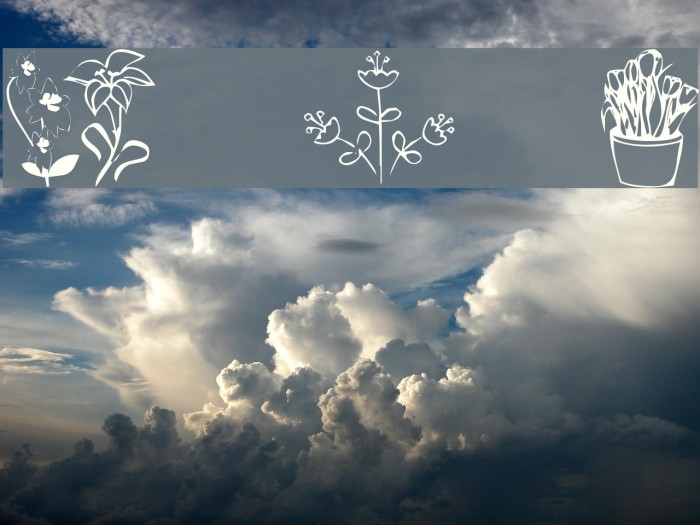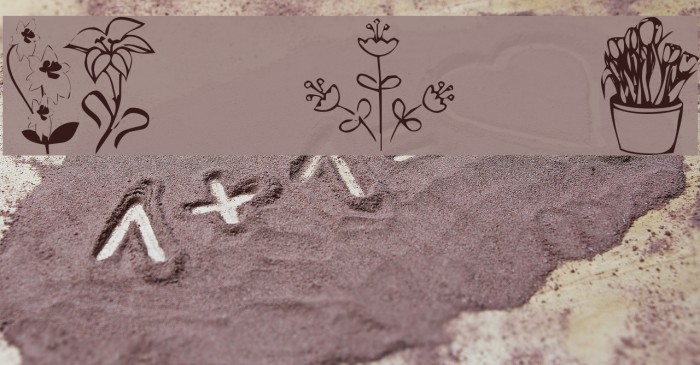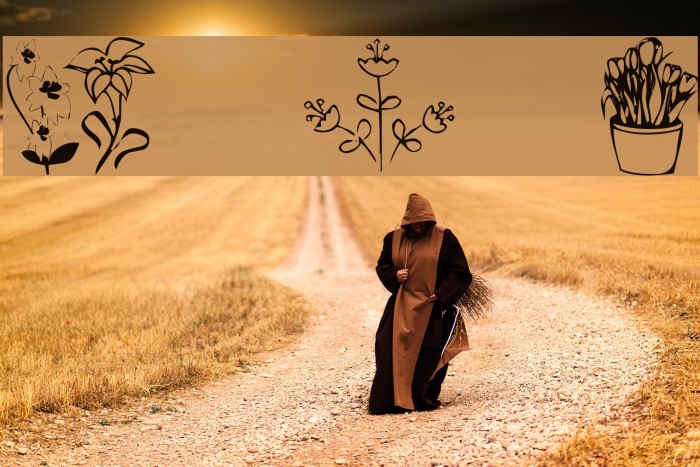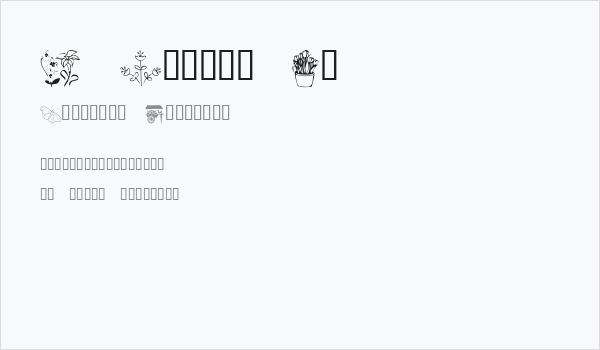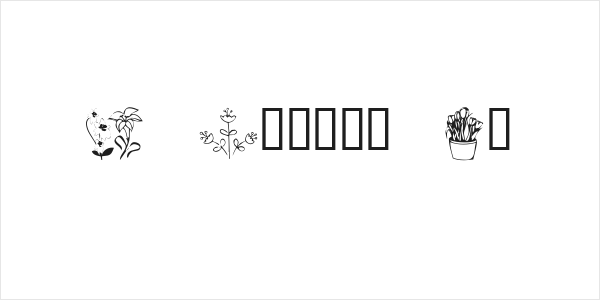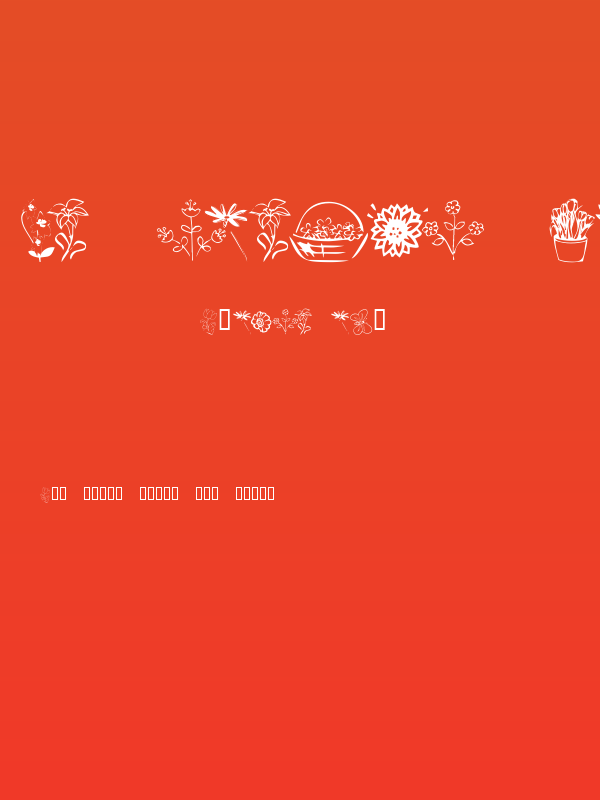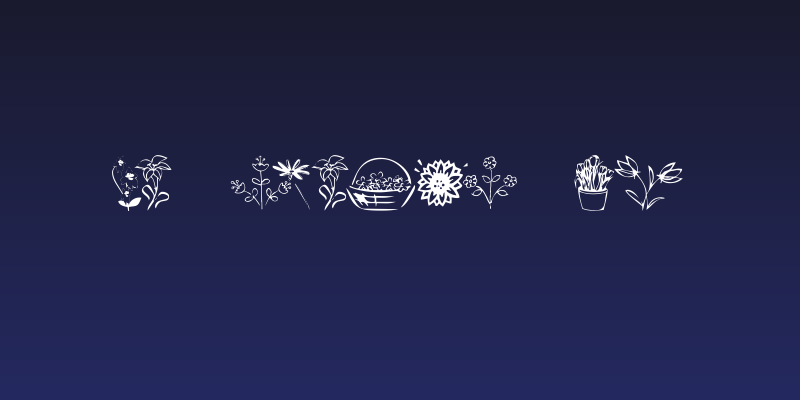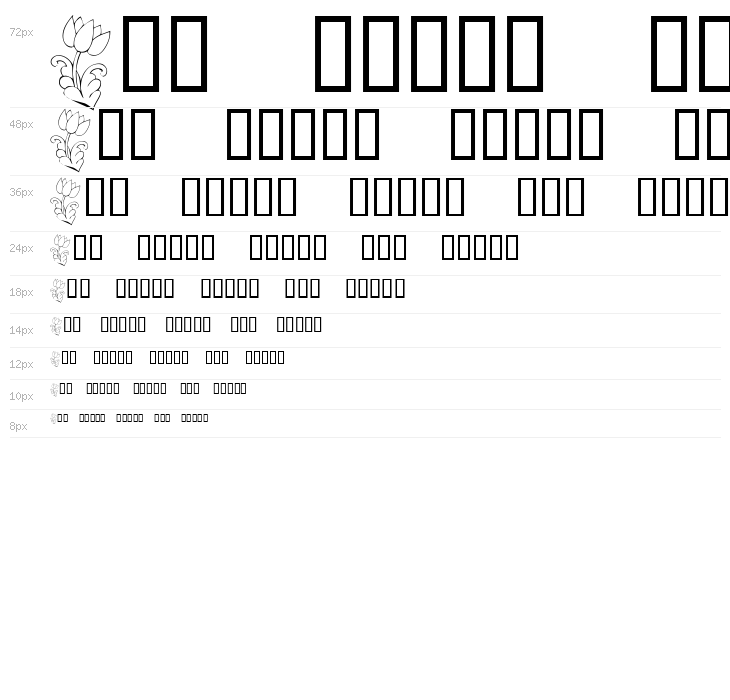
KR Spring Me Font
KR Spring Me Description
A decorative dingbat font featuring hand-drawn spring-themed illustrations such as flowers, plants, butterflies, and garden elements. The glyphs are whimsical and detailed, evoking a playful and organic feel suitable for creative projects.
Overall StyleDecorative, Whimsical, Hand-drawn
Use CaseDecorative elements, Illustrative accents, Themed graphics
Proposed ProjectsGreeting cards, scrapbooking, invitations, seasonal posters, decorative borders, craft projects.